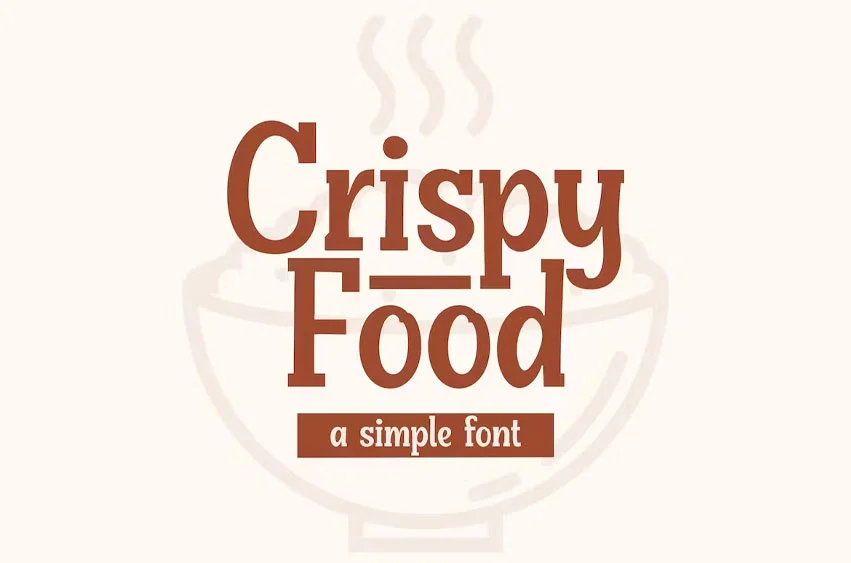
Crispy Food Font is a cool, fun and adaptable display font. This original look will appeal to a wide range of crafty ideas, from letterheads and titles, to stationery.
- Uppercase and Lowercase
- Punctuation & Number
- Multilingual Support ÀÁÂÃÄÅÆÇÐĐÈÉÊËÌÍÎÏŁÑÒÓÔÕÖØŒŠÙÚÛÜŸÝŽàáâãäåæçđèéêëìíîïłñòóôõöøœšùúûüýÿž